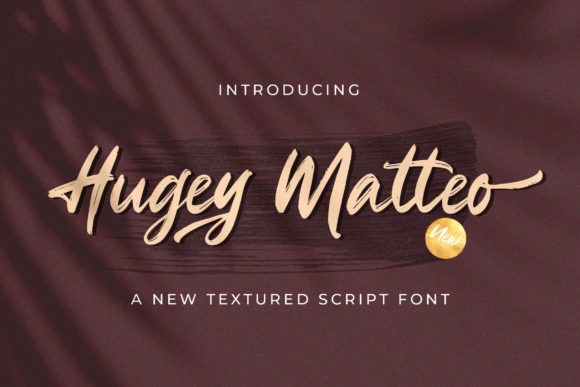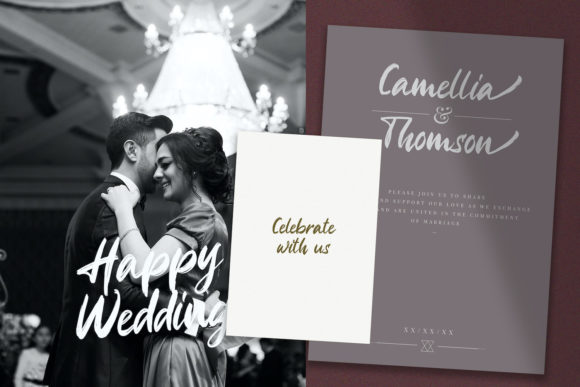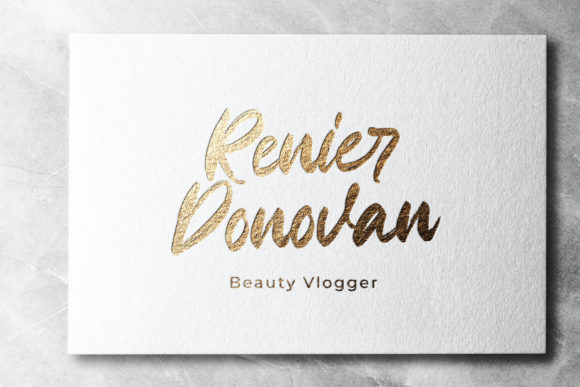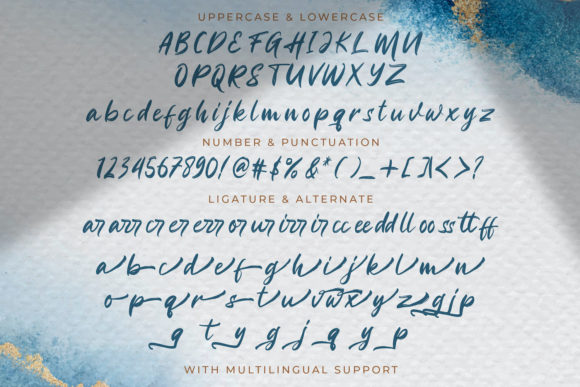
Higuey Matteo Font
About Higuey Matteo Font
Higuey Matteo is a lovely script font featuring charming, playful characters that seem to dance along the baseline. Add this font to your most creative ideas, and notice how it makes them stand out! Higuey Matteo is PUA encoded which means you can access all of the glyphs and swashes with ease!